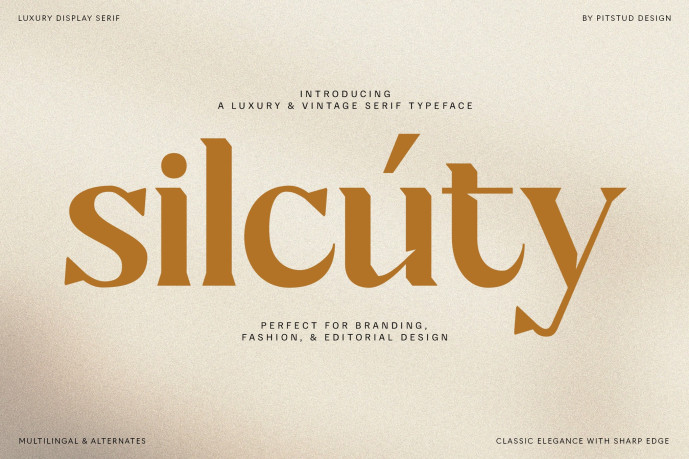
Silcuty – Bold Fashion Font
Silcuty – Bold Fashion Font is a refined and stylish serif typeface that blends luxury, vintage charm, and sharp modern edges. With its bold curves and precise cuts, Silcuty delivers timeless elegance perfect for branding, fashion, and editorial projects that need a touch of sophistication.
Whether you’re designing a high-end brand identity, fashion magazine cover, or editorial layout, Silcuty offers the perfect mix of retro class and modern sharpness. Its versatile style adapts seamlessly to logos, packaging, advertising, and luxury-themed visuals.
Font Features
• Luxury & Vintage Style: Elegant serif with a refined retro edge.
• Complete Character Set: Uppercase, lowercase, numbers, punctuation, symbols.
• OpenType Features: Alternates, ligatures, stylistic sets.
• Multilingual Support: Covers multiple European and international languages.
Silcuty combines classic elegance and modern sharpness, making it a standout choice for designers who want both style and substance. Its luxurious design language adapts easily to both print and digital projects, ensuring your work feels premium and polished.
Perfect For
• Brand Identity: Build timeless, luxury-focused designs.
• Editorial Design: Create striking headlines with sharp elegance.
• Fashion Industry: Elevate lookbooks, campaigns, and magazines.
• Product Packaging: Add sophistication to premium goods.
• Logo Design: Establish a bold and elegant brand mark.